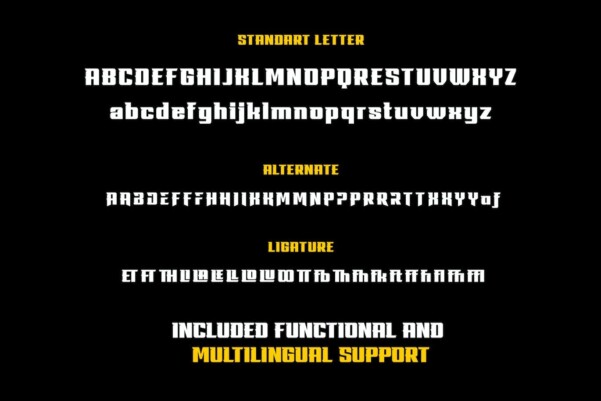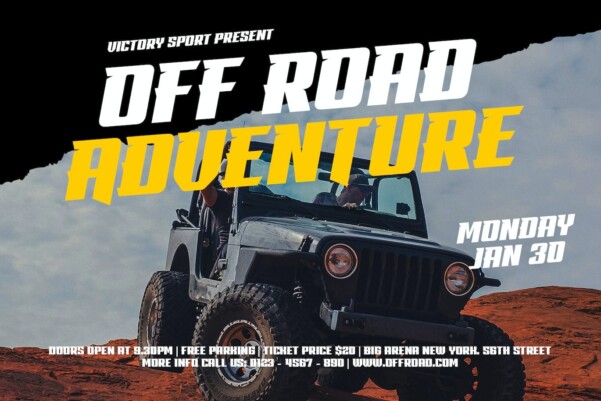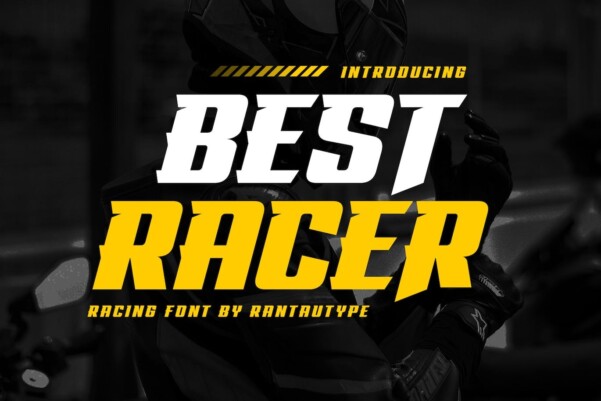
Best Racer Font
Best Racer Font – Experience racing in a visual form for your design with the best racing font. Inspired by the fast car brand and a futuristic digital concept, it targets the fast-forward mentality with a bold shape to get the message across louder and faster than ever. Best runners come with alternative, ligature and multilingual support.
Perfectly suitable for any creative activity, sports branding, logo, e-sport, games, posters, movies/movies, car brands, car events, advertising, motorcycles, digital futuristic concept, etc. Now you use Best Racer to improve your design or branding